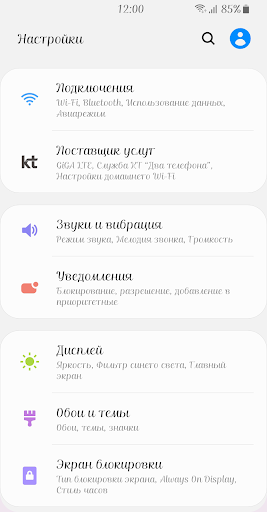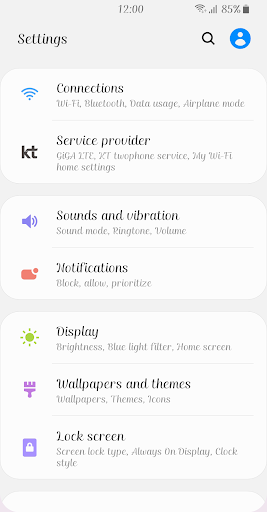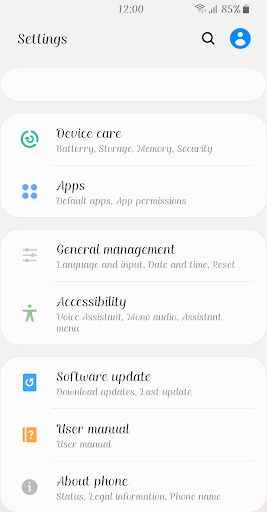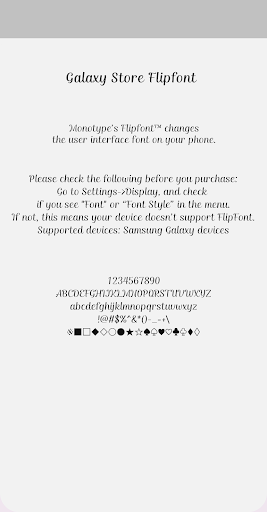
ZF Amoremio™ Latin and Cyrillic Flipfont
It is a script-style font that seriousness feels.
You can see the change in thickness according to the movement of the stroke, and the naturally continuous stroke gives a comfortable impression.